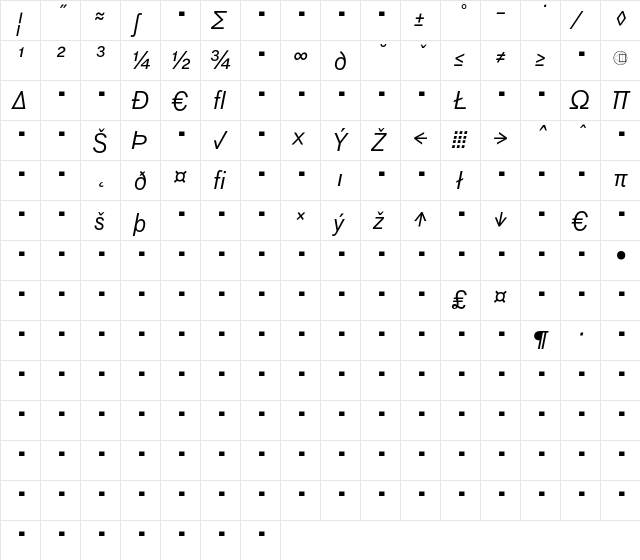
BauLF-RegularItalicExp Regular
Design Context for BauLF-RegularItalicExp Typeface
BauLF-RegularItalicExp offers clean, dependable letterforms without strong stylistic allegiance, making it a practical choice for designers who need flexibility. The slanted form adds forward momentum and visual energy.
Pro Tip: Try BauLF-RegularItalicExp for annotation and caption copy alongside an upright companion — the contrast in angle creates a dynamic but ordered typographic system.